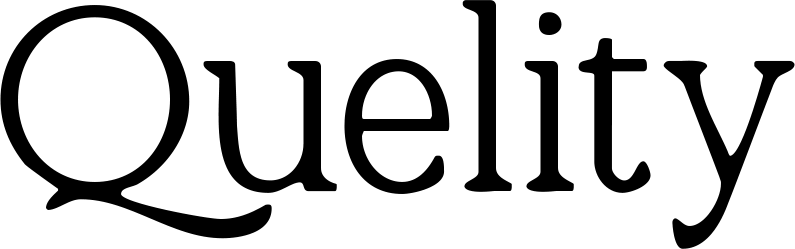
Quelity Font
If you want to have a special signature in the field of graphic design, it is better to use a serif font like Quelity to increase the quality of your content.
This majestic font that doesn’t support numbers, conveys a sense of respect, credibility, prestige, and formality to tough customers and sparks their interest. Quelity can be used in designing logos for reputable brands, business cards, menus, and writing invitations.